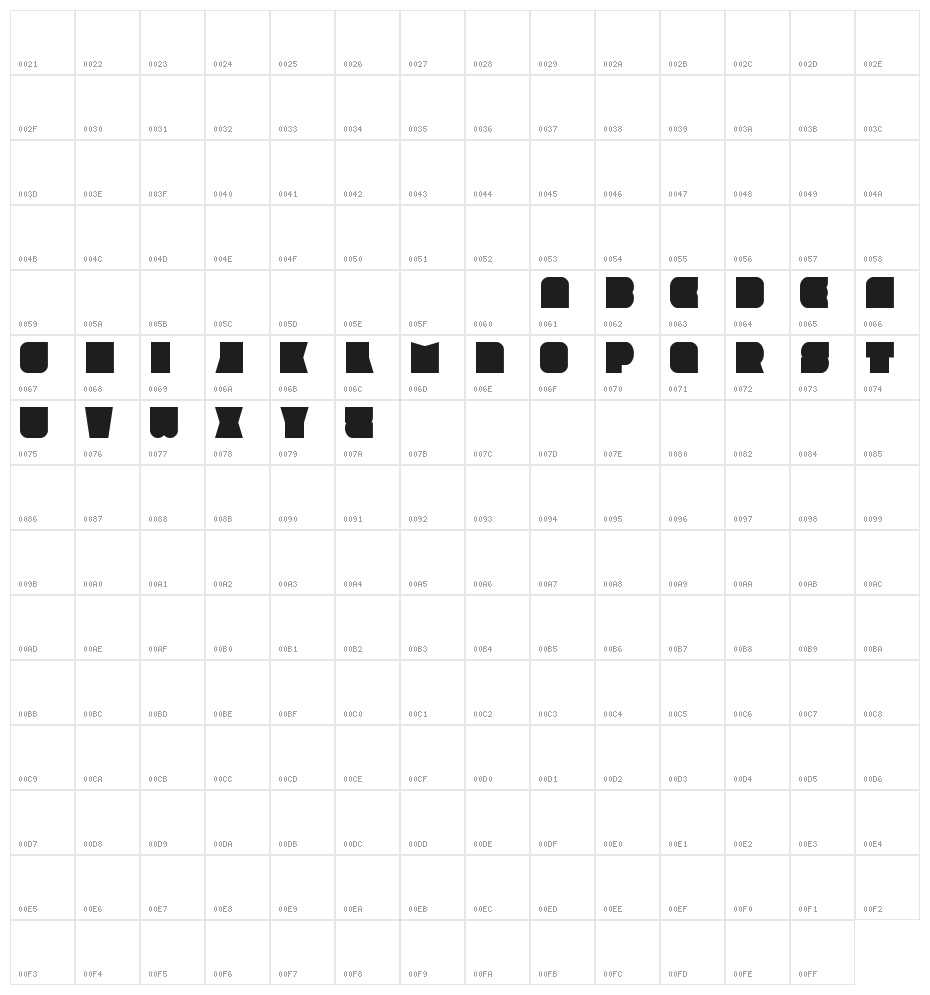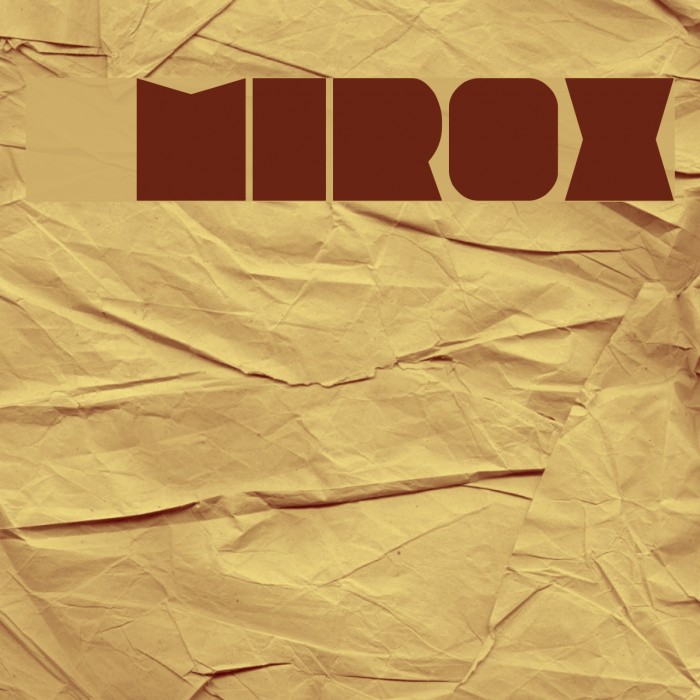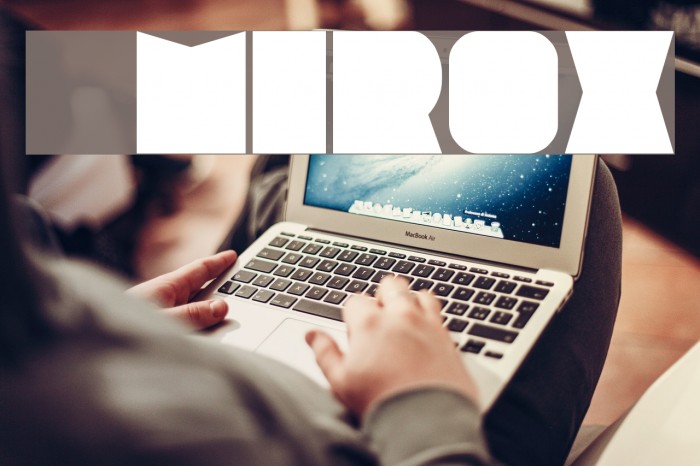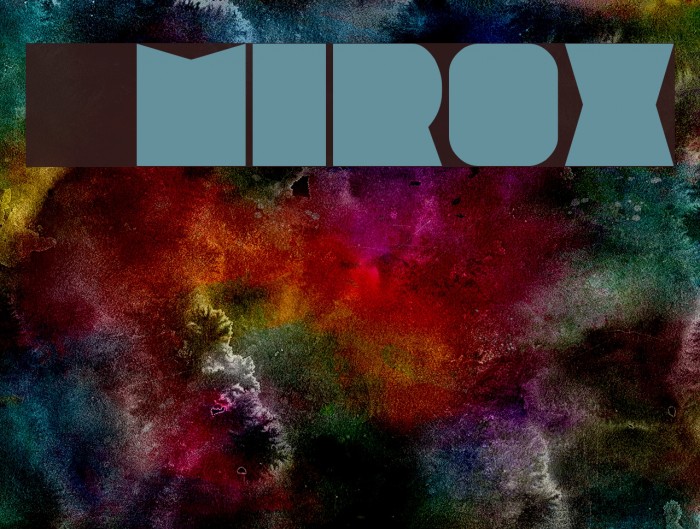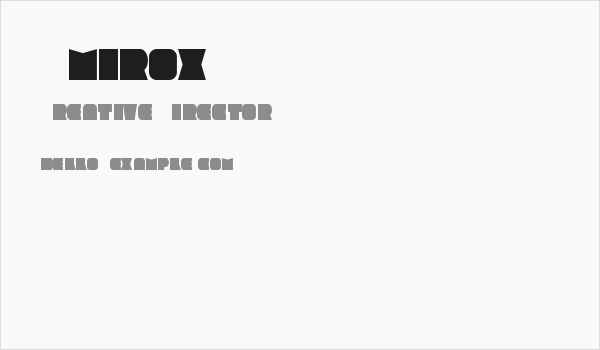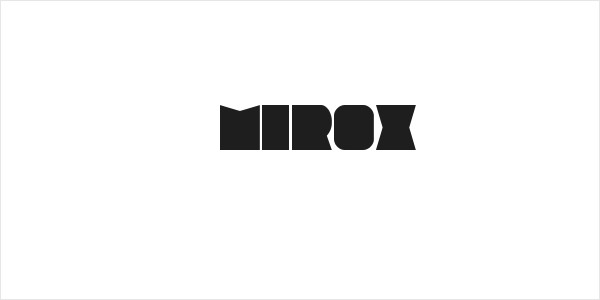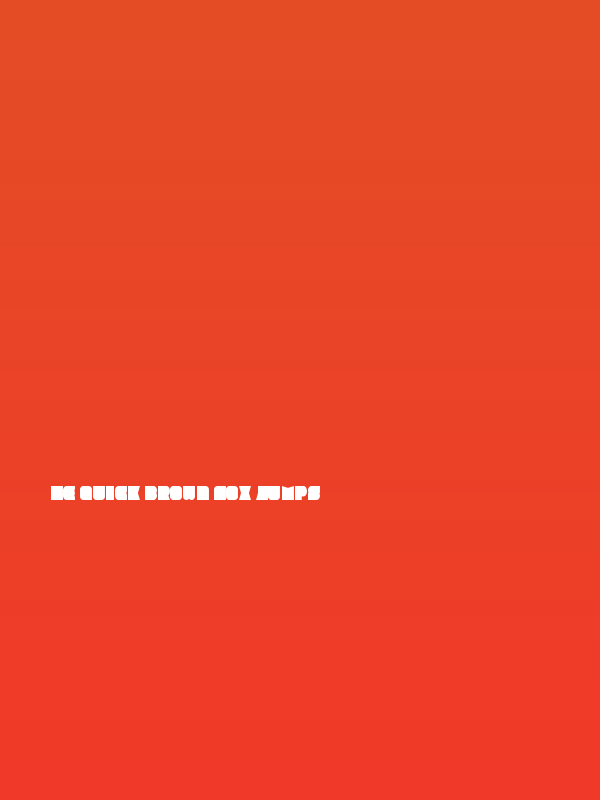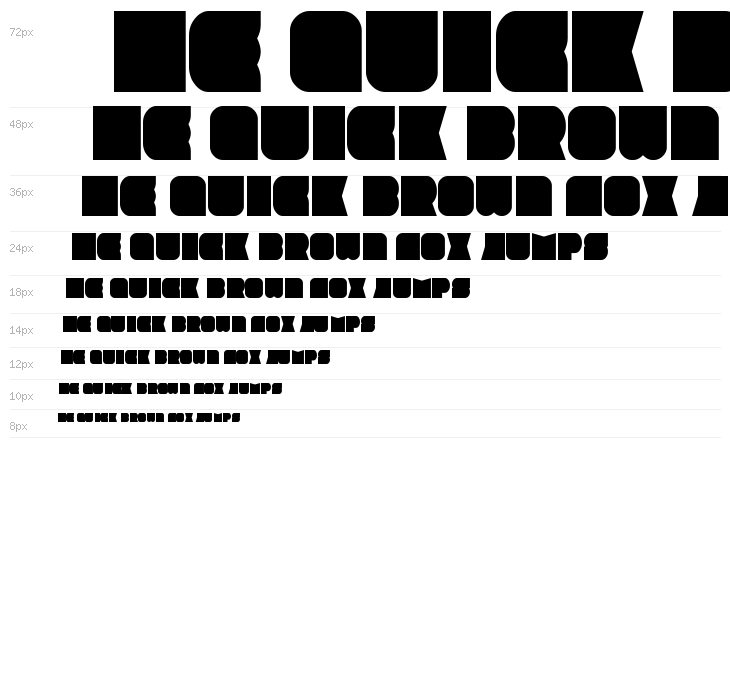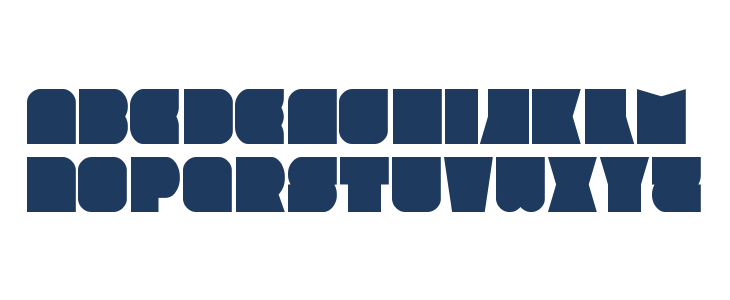
Amirox Font
Amirox Description
This font features a bold and geometric style with a strong, block-like appearance. Each character is designed with rounded edges, giving it a soft yet impactful look. The uniformity in height and width across the characters creates a cohesive and structured feel. The font's design is modern and eye-catching, making it suitable for attention-grabbing headlines or logos. Its boldness ensures visibility from a distance, while the rounded corners add a touch of friendliness and approachability.